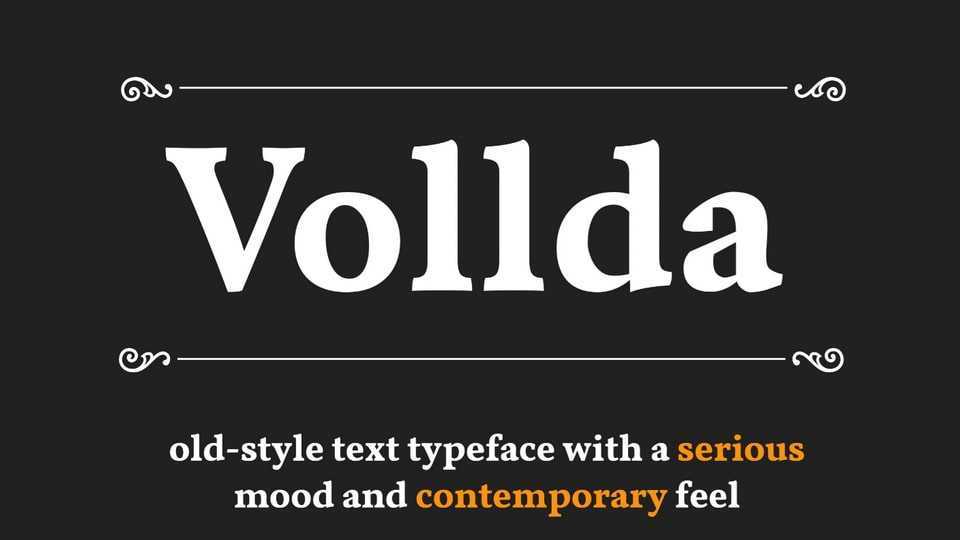
Download Vollda font, an old-style text typeface with a serious mood and contemporary feel. The graceful serifs of Vollda font back to traditional typographic design, evoking a sense of historical richness.